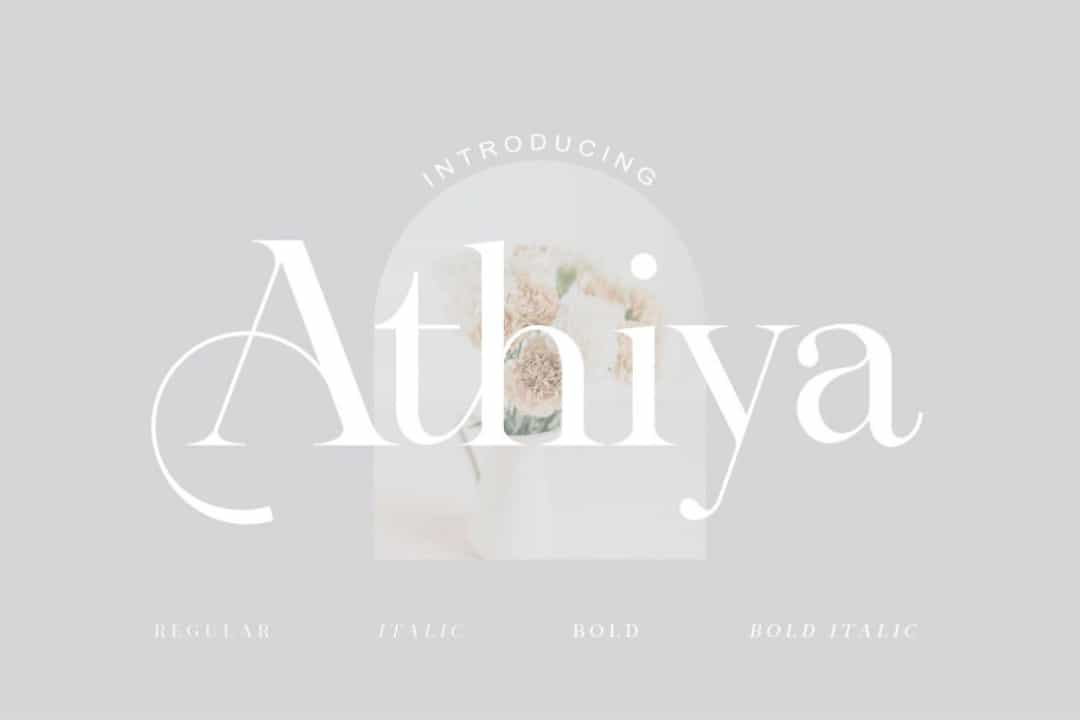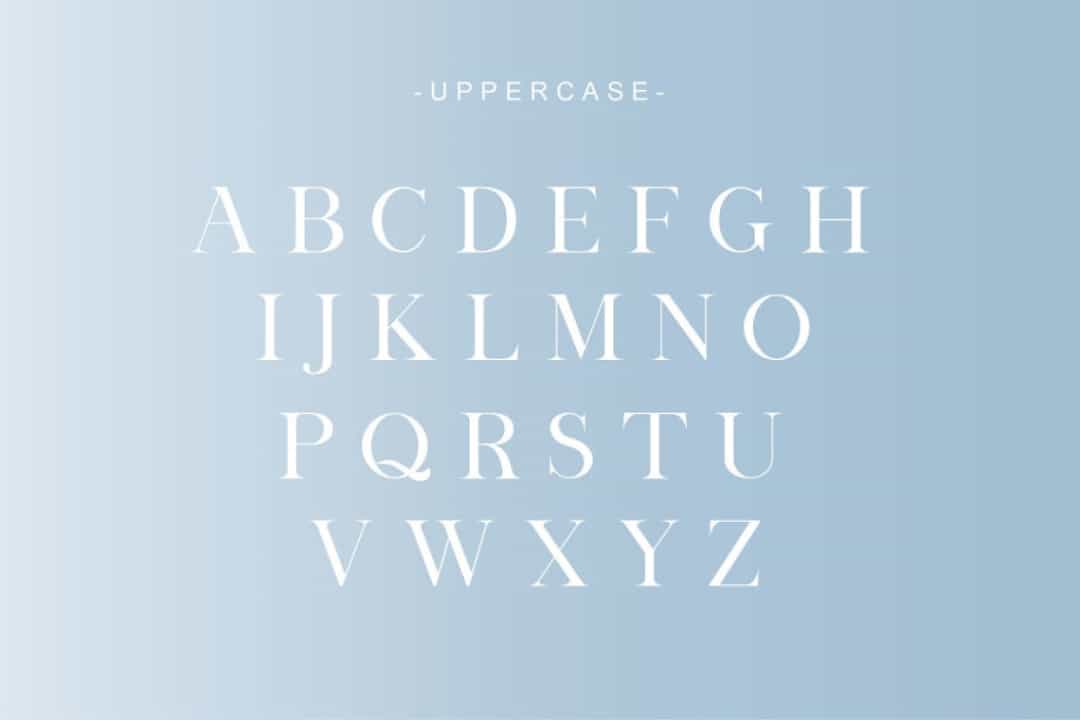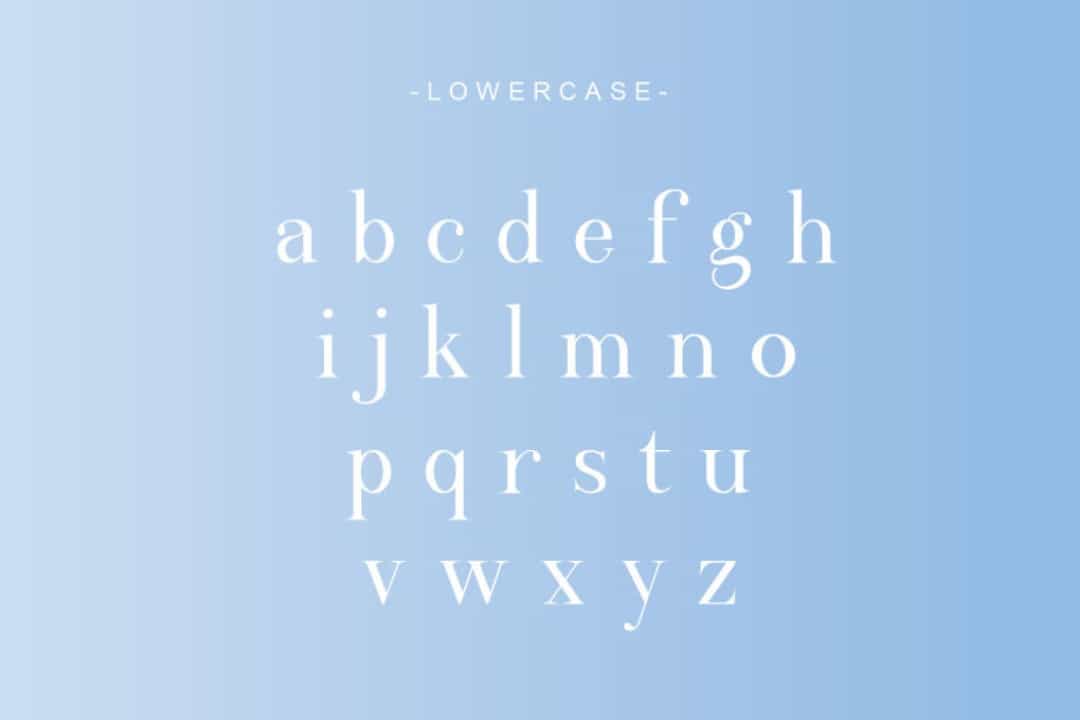
Athiya Serif Font is perfect for adding elegance and class to logo and branding designs. PUA encoded, you have quick access to its fantastic characters and ligatures!